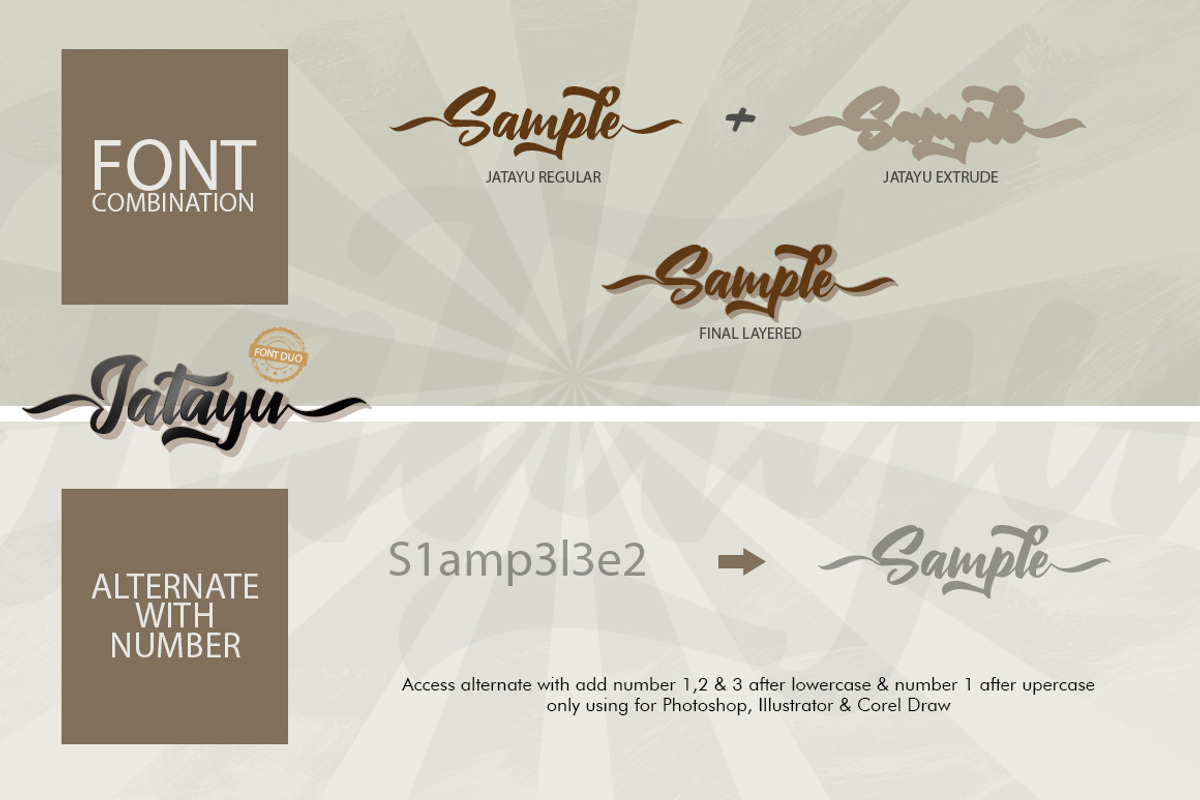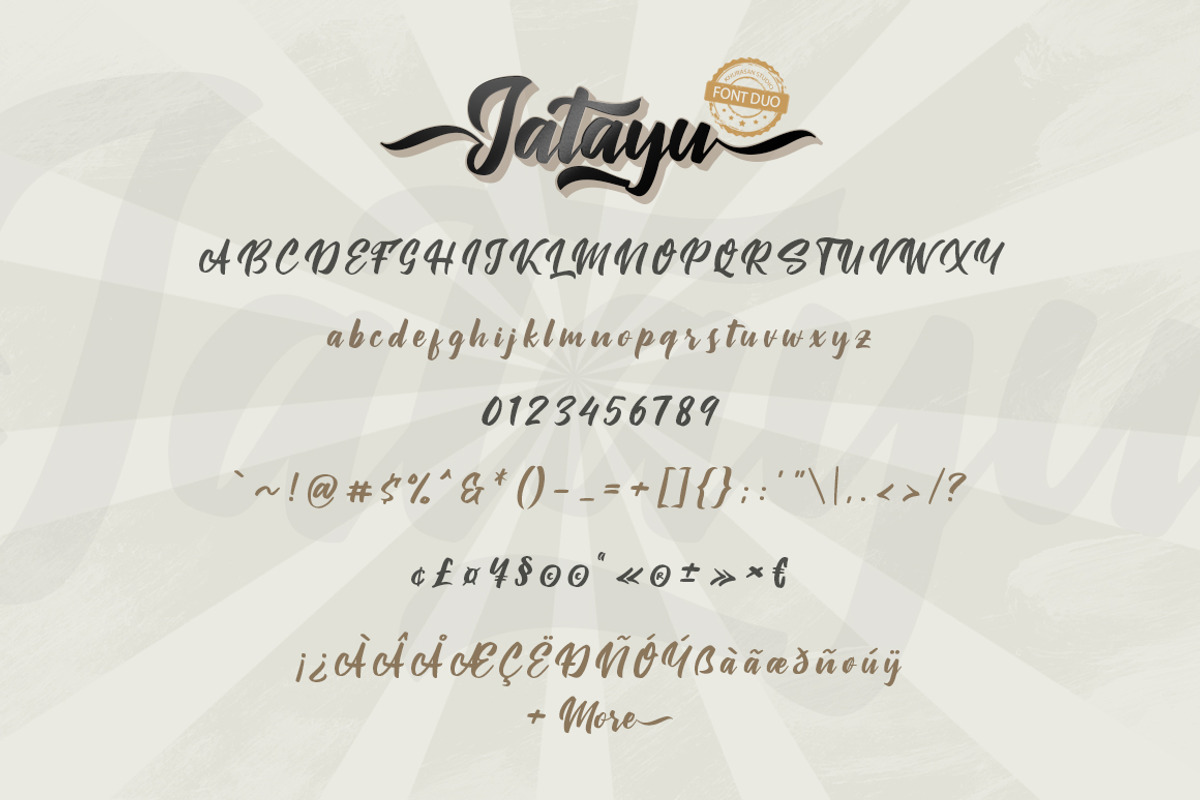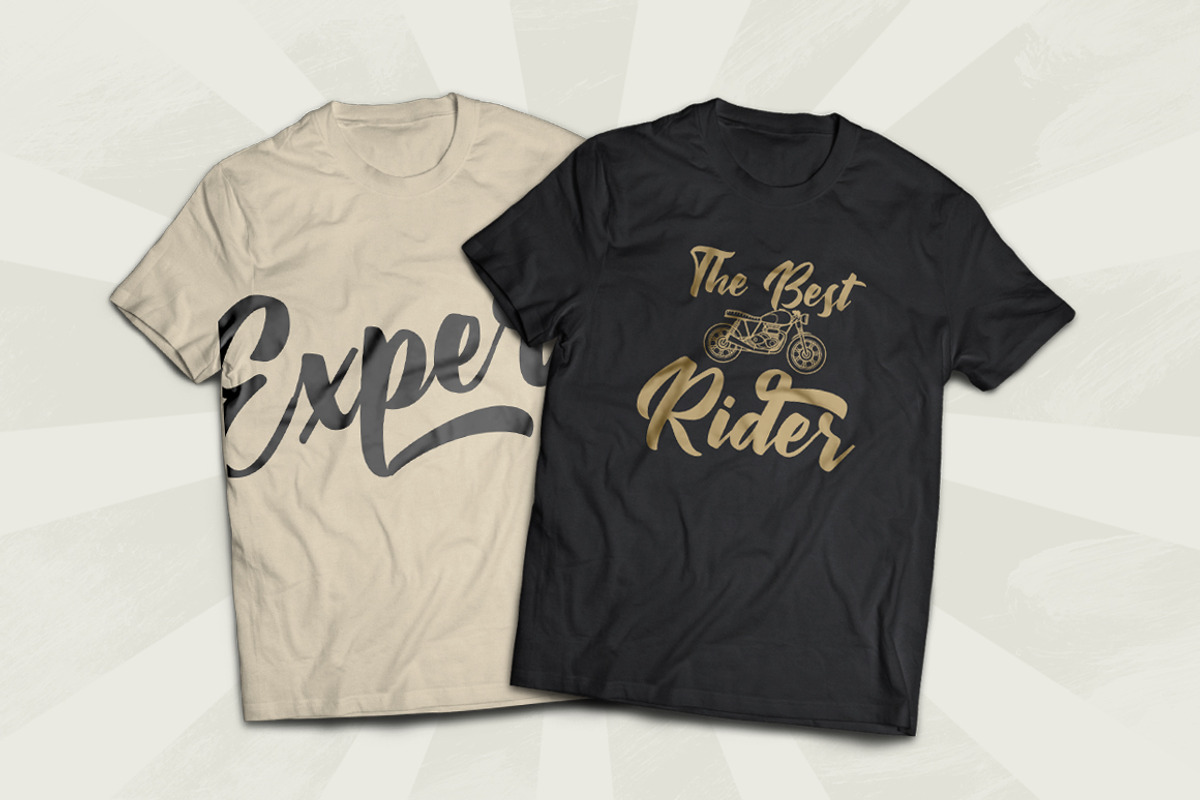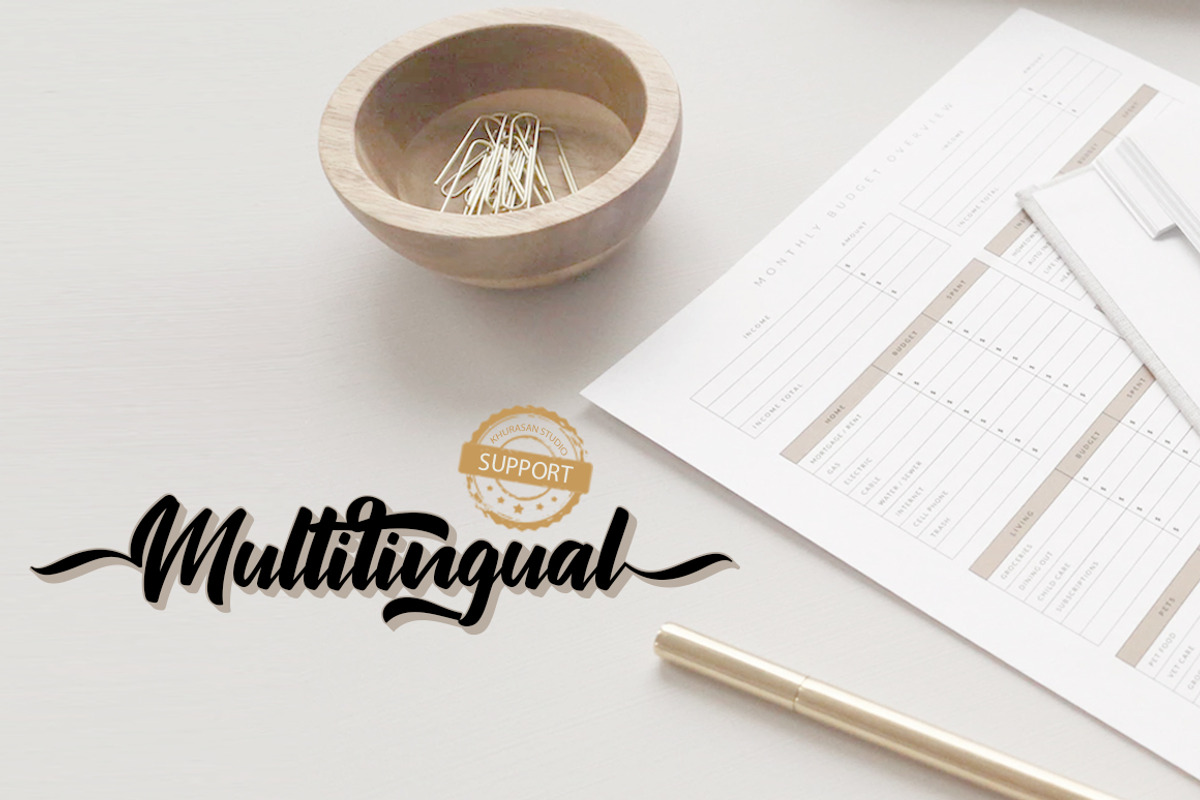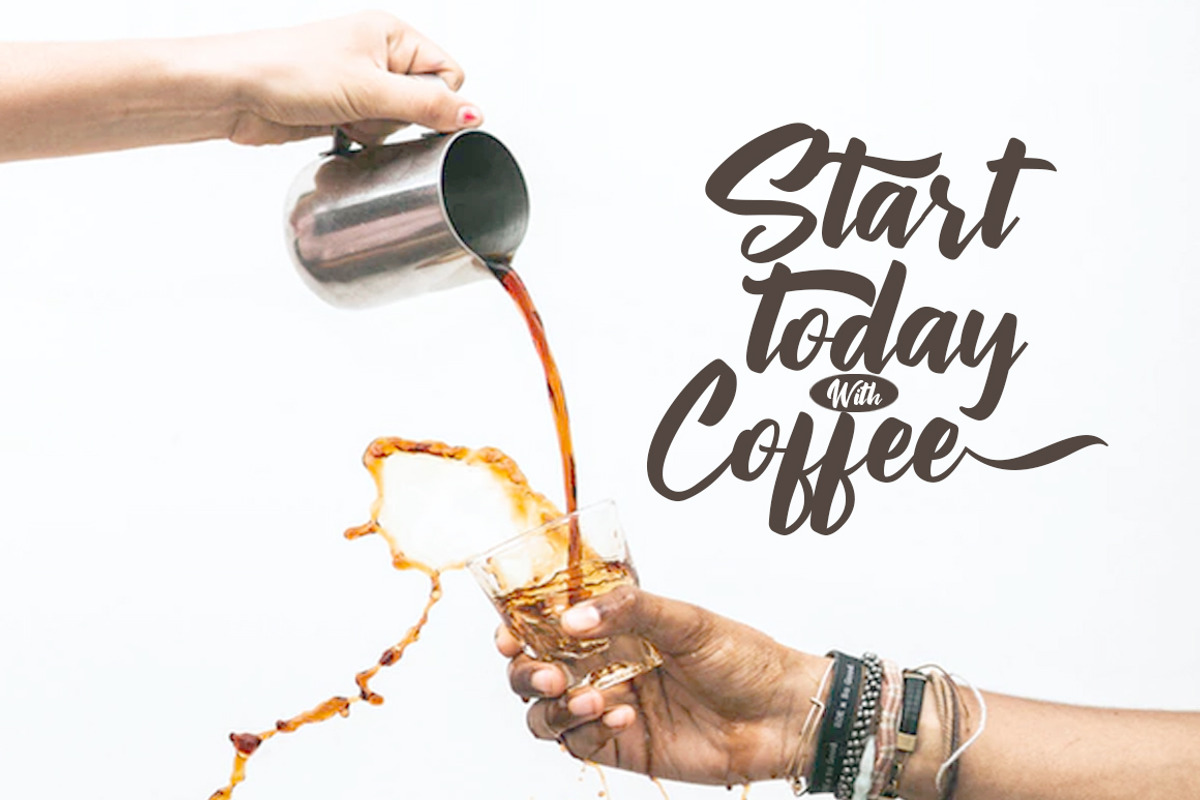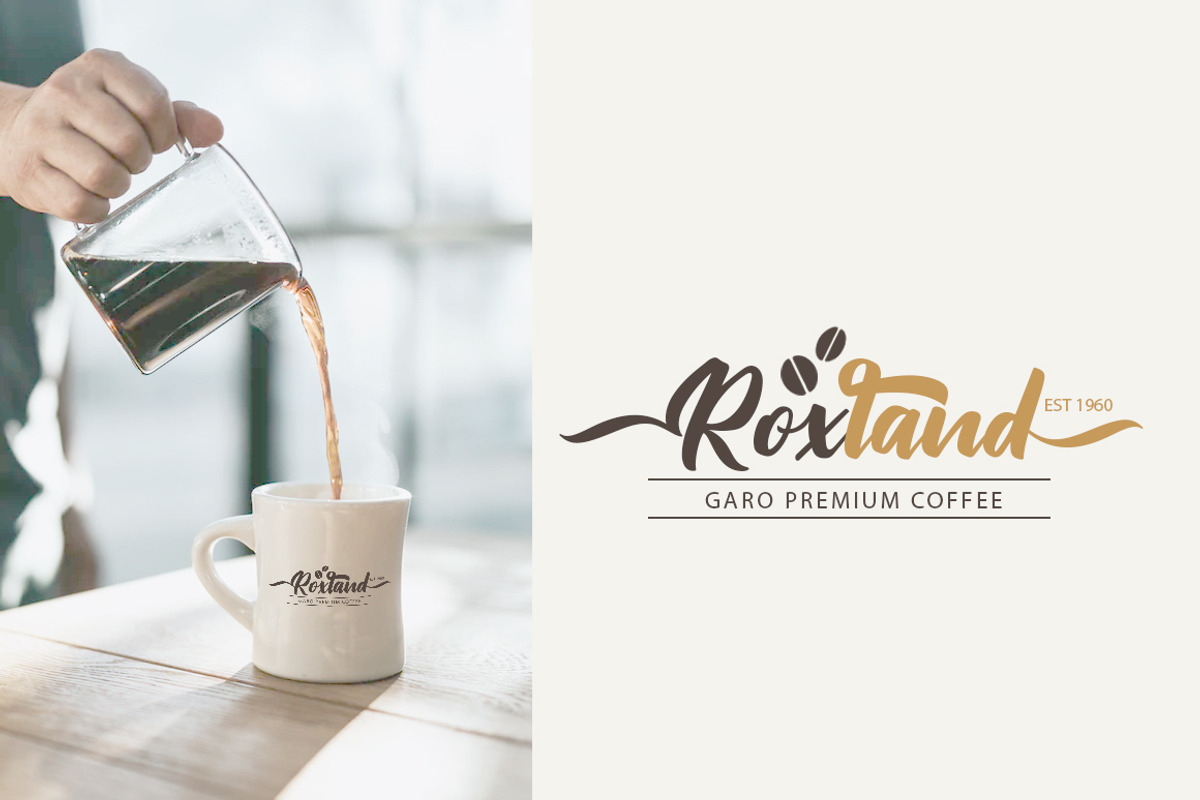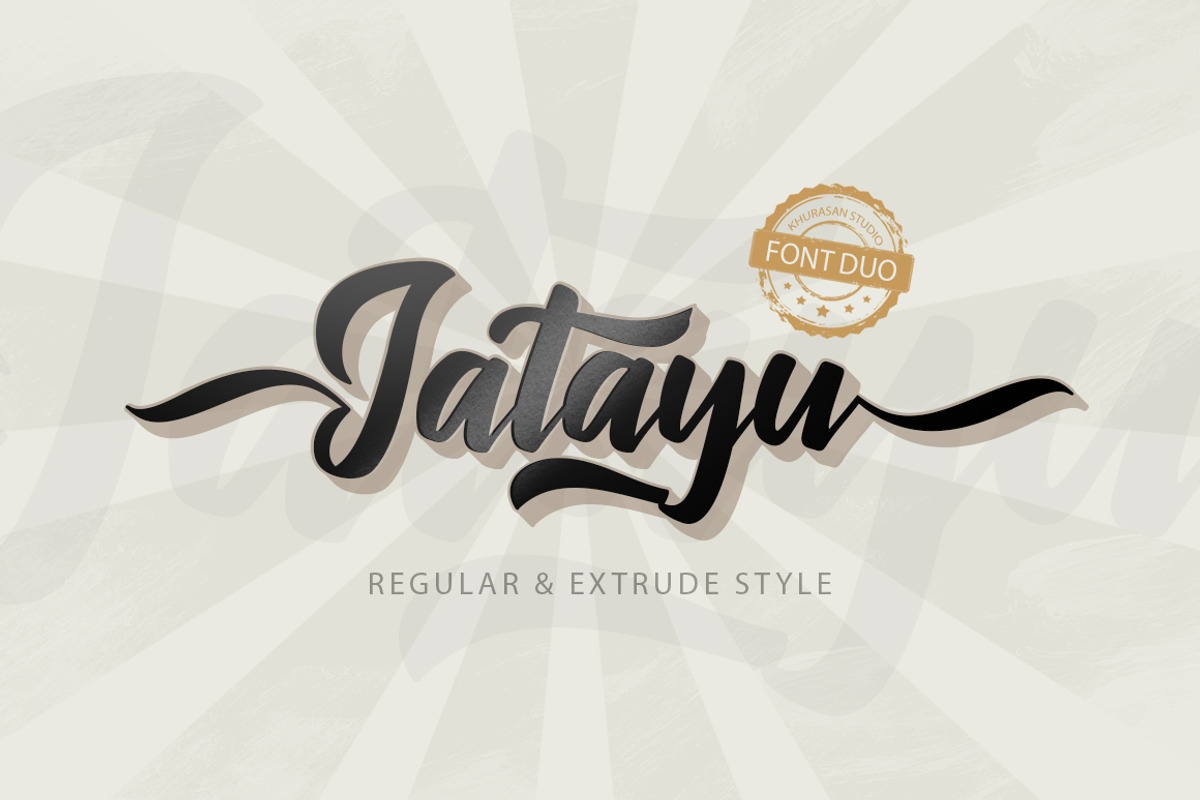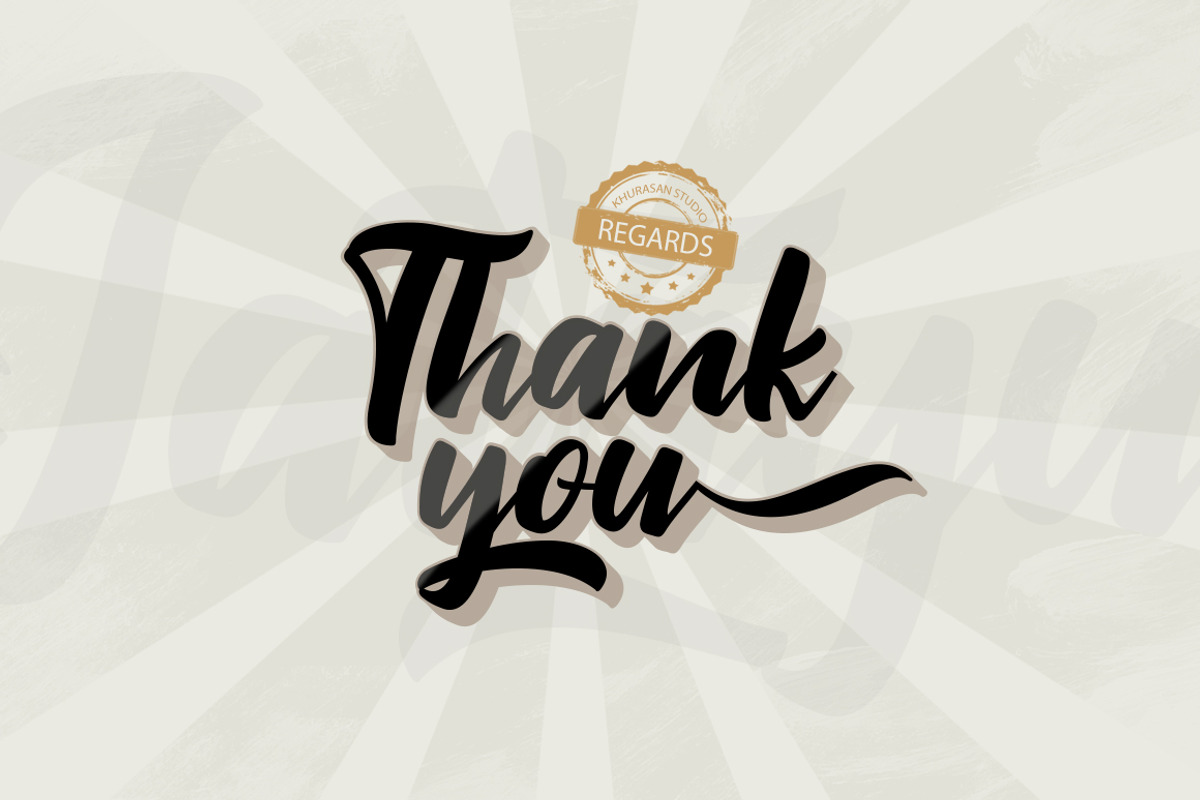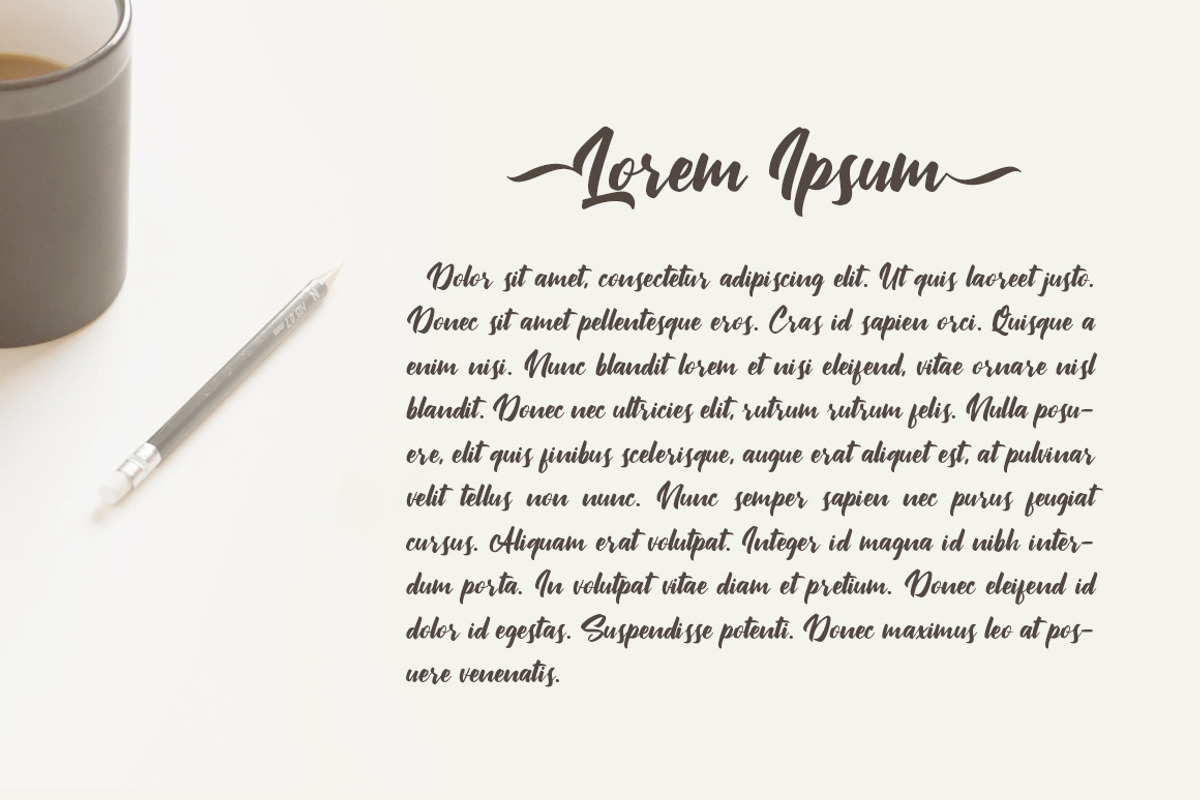
Jatayu Layered Script Font
The Jatayu Font is a fun bold script font, fresh & modern style . Jatayu Script has two different style, regular & extrude. You can combine regular and extrude to get amazing results. Jatayu Script Font suitable for logo, branding, greeting card, poster and any design that you create.